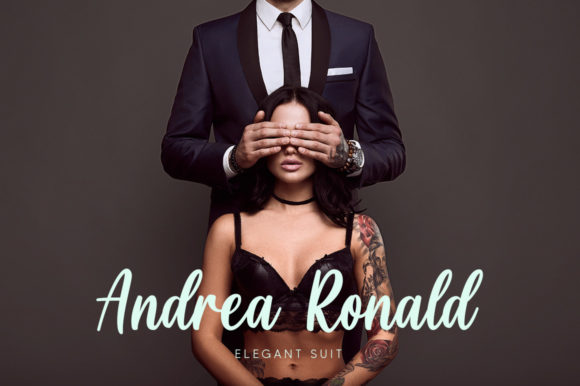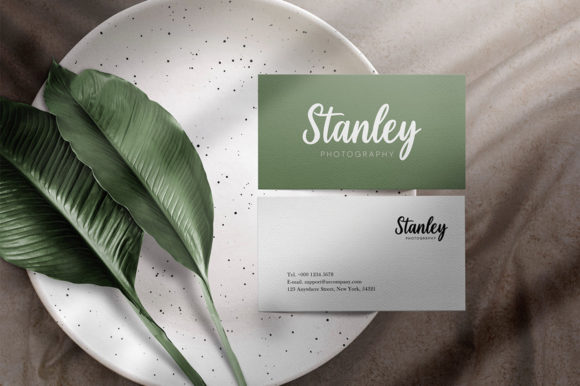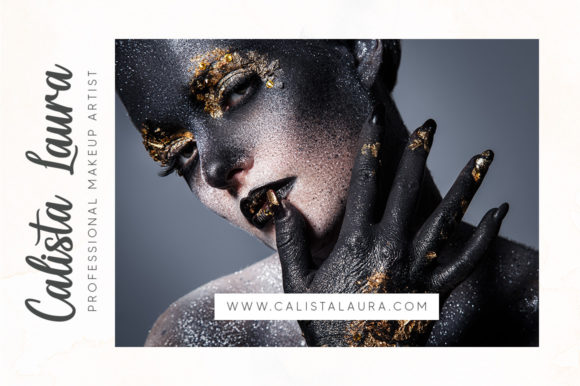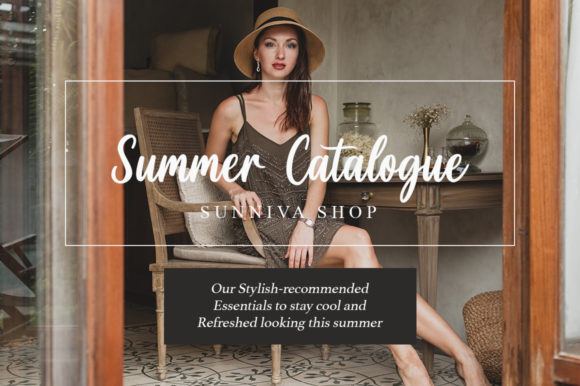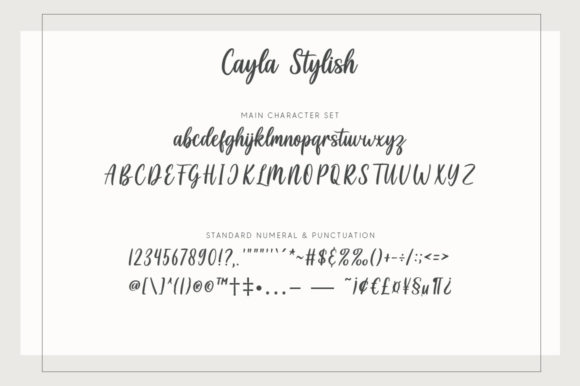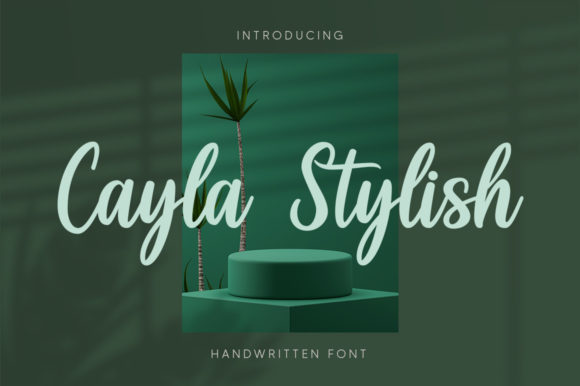
Cayla Stylish Font: Elevate Your Designs with Elegance
Are you looking for a font that exudes elegance and sophistication? Look no further than Cayla Stylish, a beautiful handwritten font that is perfect for adding a touch of class to your designs. With its well-rounded letters and flowing curves, Cayla Stylish is ideal for a variety of projects, from wedding invitations and thank you cards to business cards and more.
The Characteristics of Cayla Stylish Font
Cayla Stylish is an elegant handwritten font that boasts a range of characteristics that make it perfect for designers and crafters. Some of its key features include:
• Well-rounded letters: The letters in Cayla Stylish are carefully crafted to be perfectly rounded, giving the font a soft and feminine touch.
• Flowing curves: The curves in Cayla Stylish are smooth and flowing, creating a sense of movement and fluidity.
• Elegant feel: The overall feel of Cayla Stylish is one of elegance and sophistication, making it perfect for designs that require a high level of refinement.
Uses for Cayla Stylish Font
Cayla Stylish is a versatile font that can be used for a wide range of projects. Some of the most popular uses for this font include:
• Wedding invitations: The elegant feel of Cayla Stylish makes it perfect for wedding invitations, adding a touch of sophistication and romance to your designs.
• Thank you cards: The soft, feminine curves of Cayla Stylish make it ideal for thank you cards, adding a personal touch to your correspondence.
• Business cards: The professional feel of Cayla Stylish makes it suitable for business cards, helping you to create a lasting impression.
• Stationery: Cayla Stylish is also perfect for creating stationery, such as letterheads and envelopes, adding a touch of elegance to your written correspondence.
Why Choose Cayla Stylish Font?
There are many reasons why Cayla Stylish is a great choice for designers and crafters. Some of the benefits of using this font include:
• High-quality design: The design of Cayla Stylish is of the highest quality, with carefully crafted letters and curves that are sure to impress.
• Versatility: Cayla Stylish can be used for a wide range of projects, making it a great addition to any designer’s toolkit.
• Elegant feel: The elegant feel of Cayla Stylish makes it perfect for designs that require a high level of sophistication and refinement.
Tips for Using Cayla Stylish Font
To get the most out of Cayla Stylish, here are a few tips to keep in mind:
• Use it sparingly: Cayla Stylish is a elegant font, so it’s best to use it sparingly to avoid overwhelming your design.
• Pair it with other fonts: Cayla Stylish can be paired with other fonts to create a unique and interesting look.
• Experiment with sizes: Cayla Stylish can be used at a range of sizes, from large headings to small body text.
Cayla Stylish is a beautiful handwritten font that is perfect for adding a touch of elegance and sophistication to your designs. With its well-rounded letters, flowing curves, and elegant feel, it’s ideal for a wide range of projects, from wedding invitations and thank you cards to business cards and more. Whether you’re a designer or crafter, Cayla Stylish is a great addition to your toolkit.